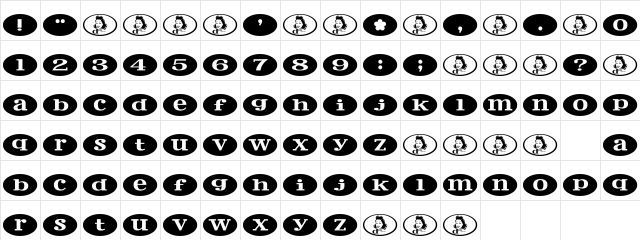
Enoki Regular
Design Context for Enoki Typeface
Enoki is a composed and adaptable typeface that performs quietly and consistently across a wide range of design contexts.